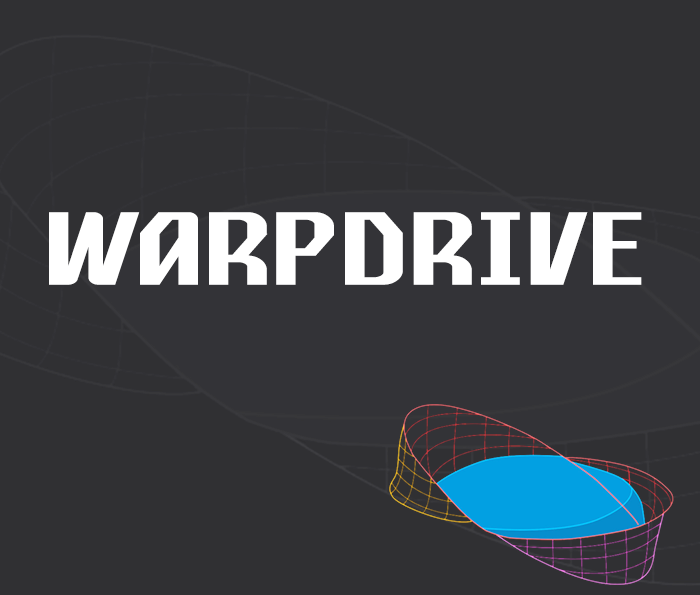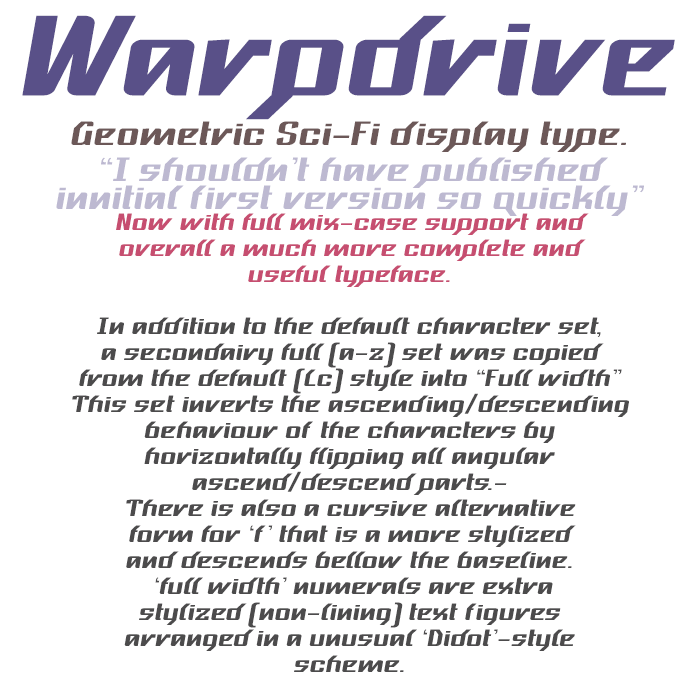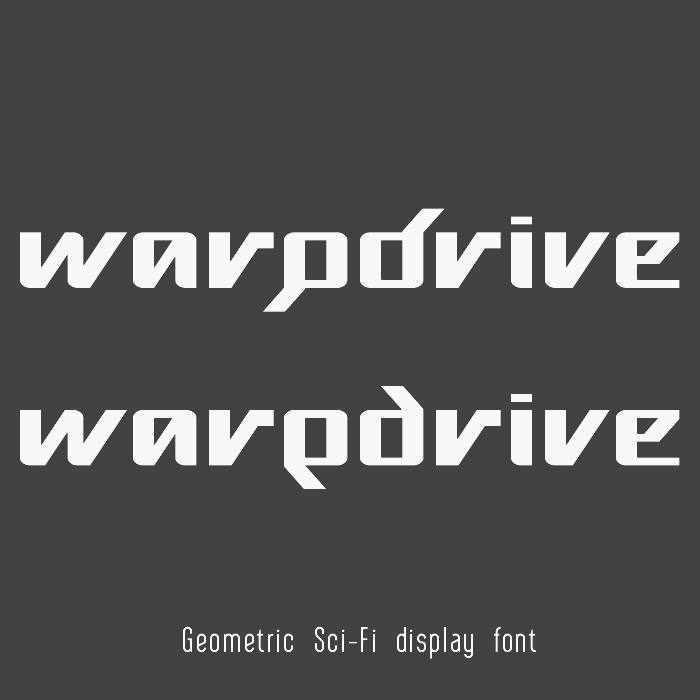
WARPDRIVE - Geometric Sci-Fi display font
Congratulations, once again! I still think it looks cooler italized, like in your second sample.
@elmoyenique: Thanks mate, yea Italic looks cool indeed, but I dont think I will do Italic version anytime soon.. too much pending projects already (lol)